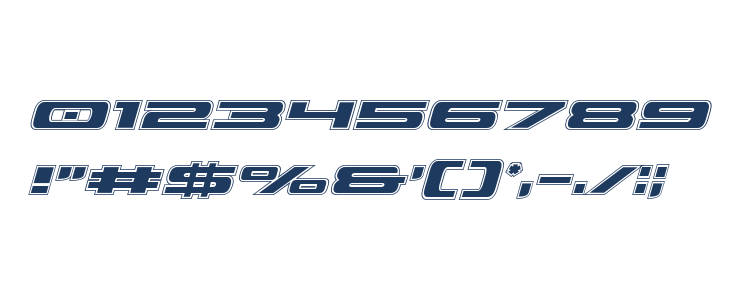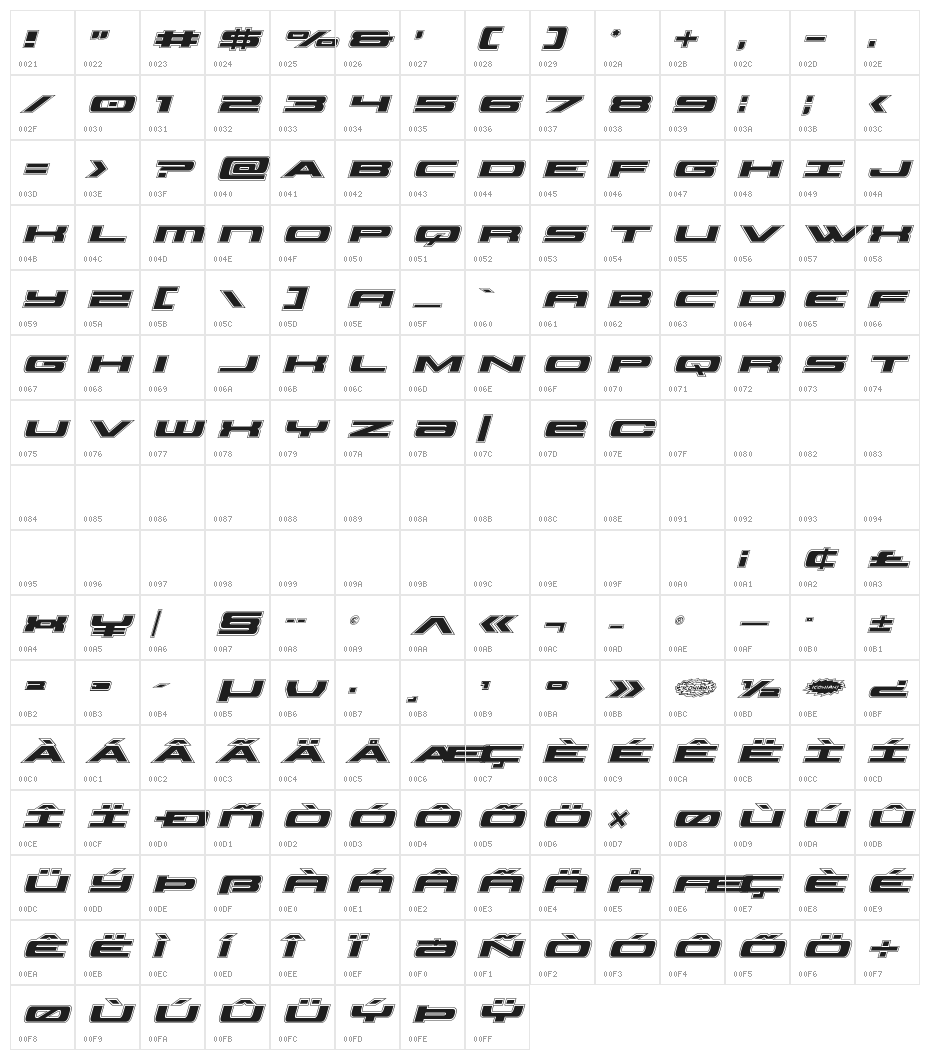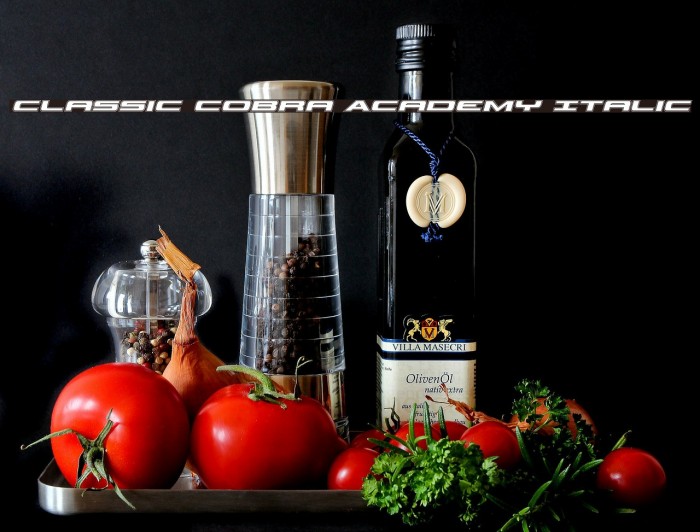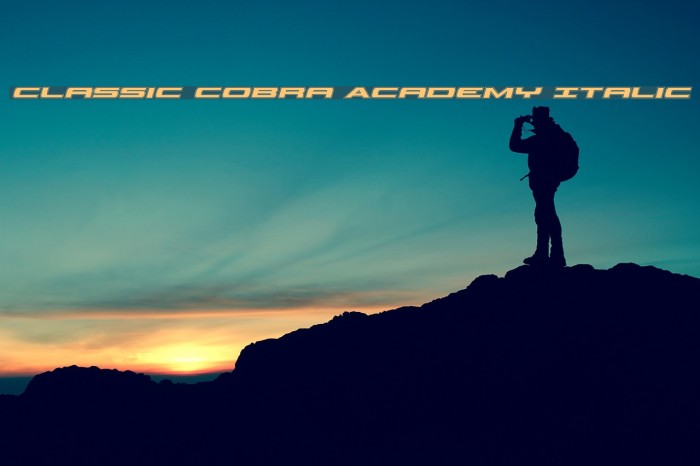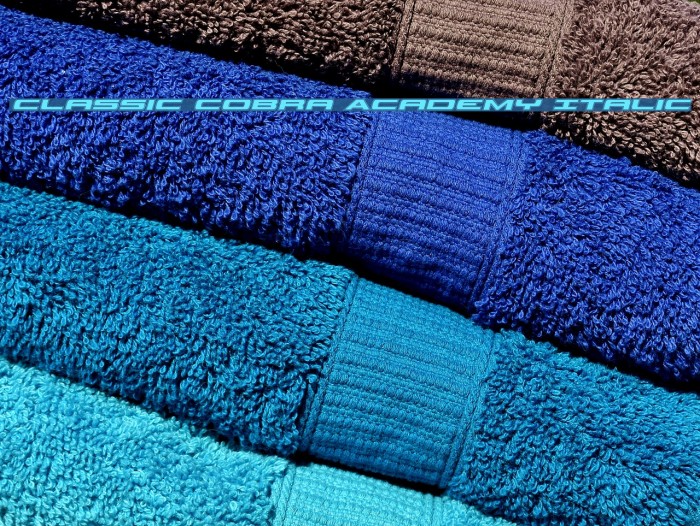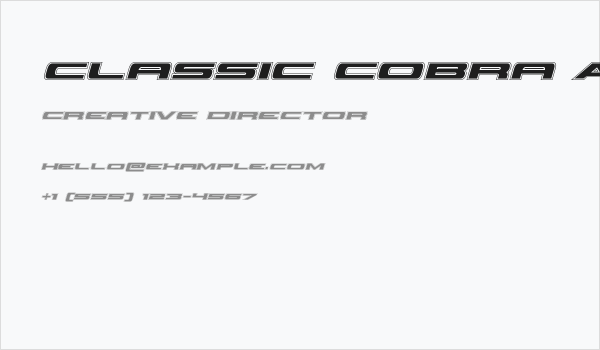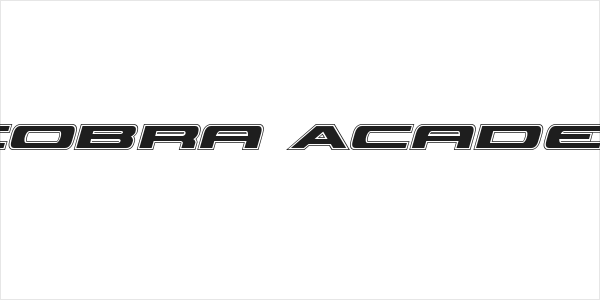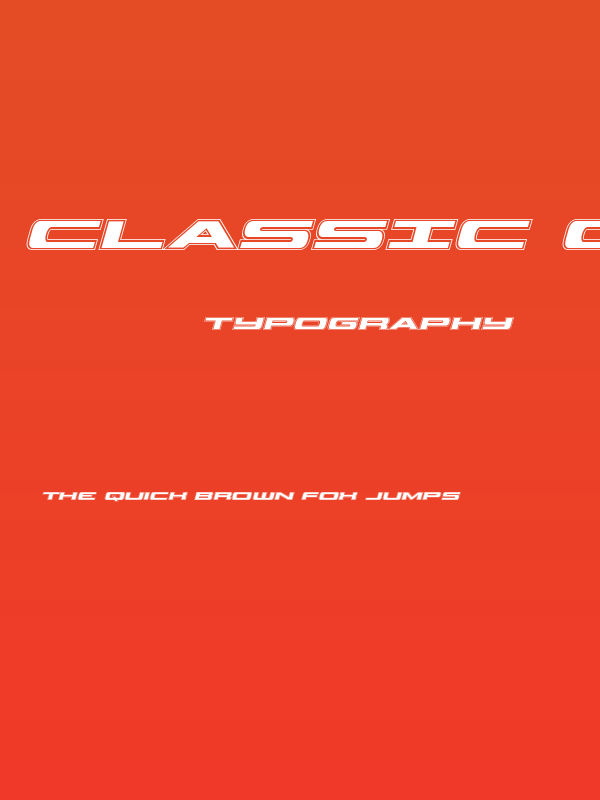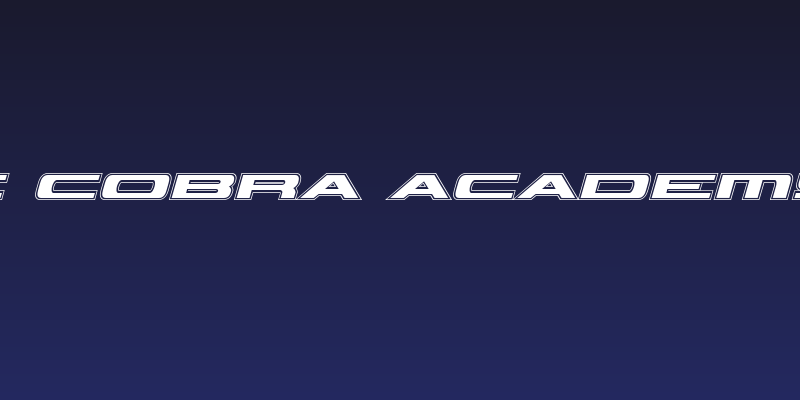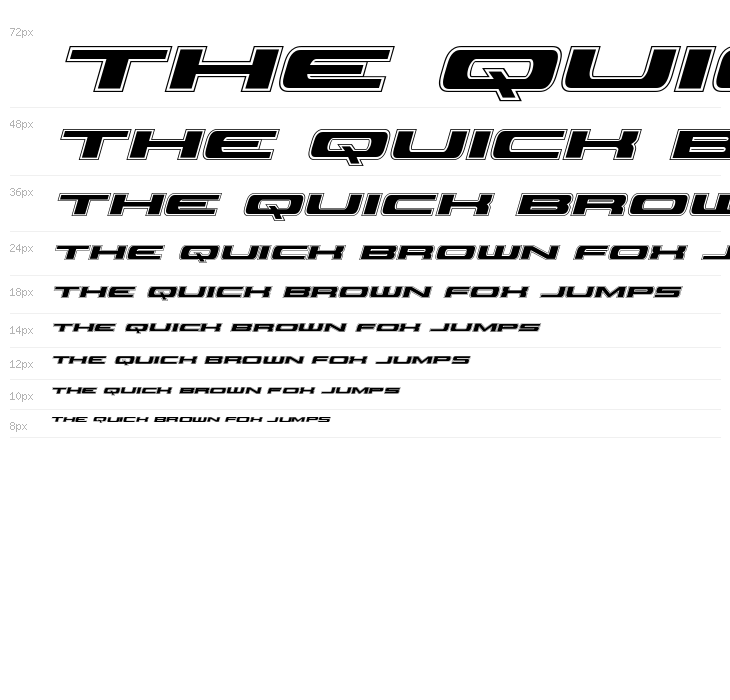
Classic Cobra Academy Italic Font
Classic Cobra Academy Italic Description
This font features a bold, italicized style with a distinct, futuristic appearance. The characters are designed with a slanted orientation, giving a sense of motion and speed. The strokes are thick and consistent, providing a strong visual impact. The font includes uppercase and lowercase letters, numbers, and a variety of special characters, all maintaining a cohesive design. The overall look is modern and dynamic, suitable for projects that require a bold statement.